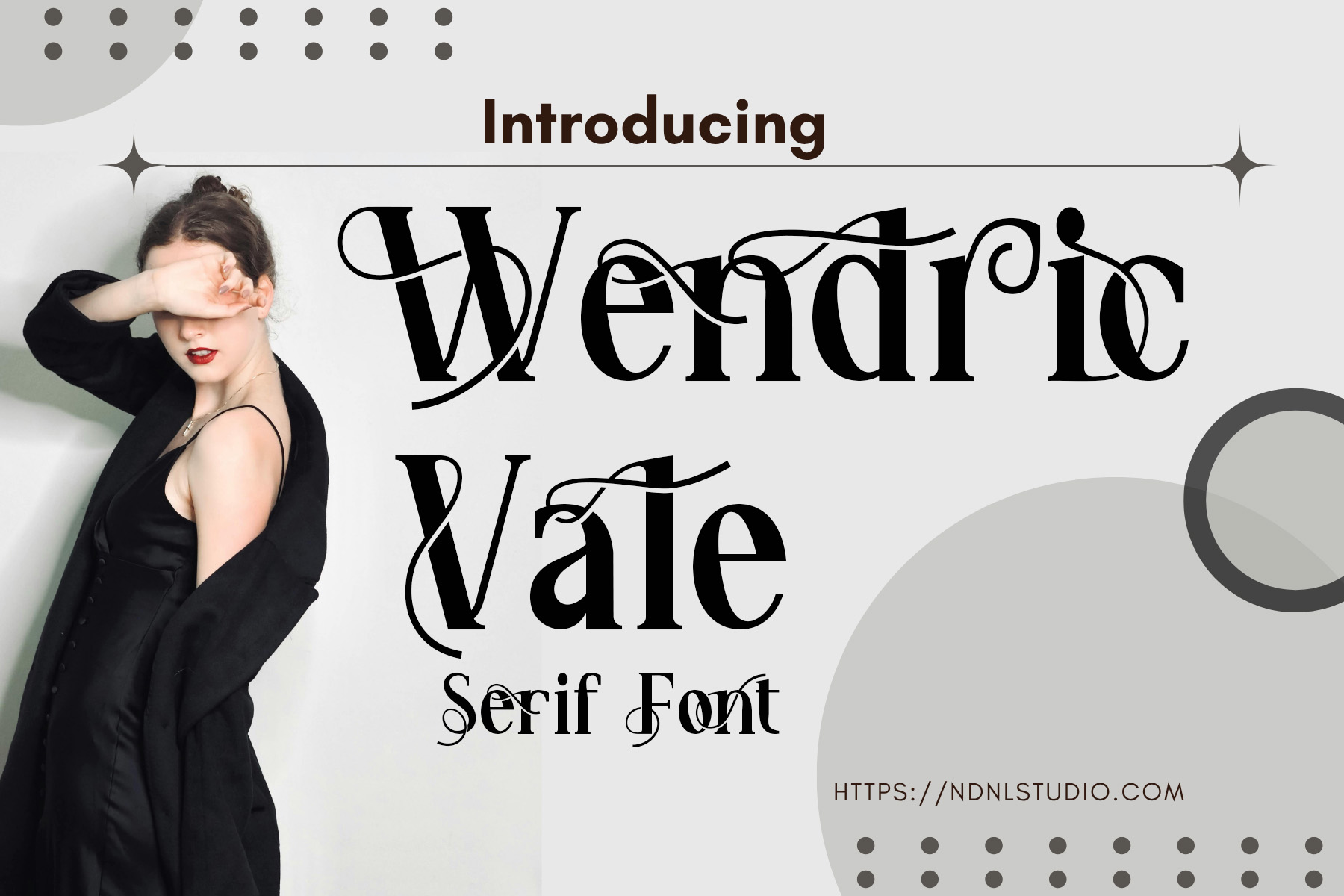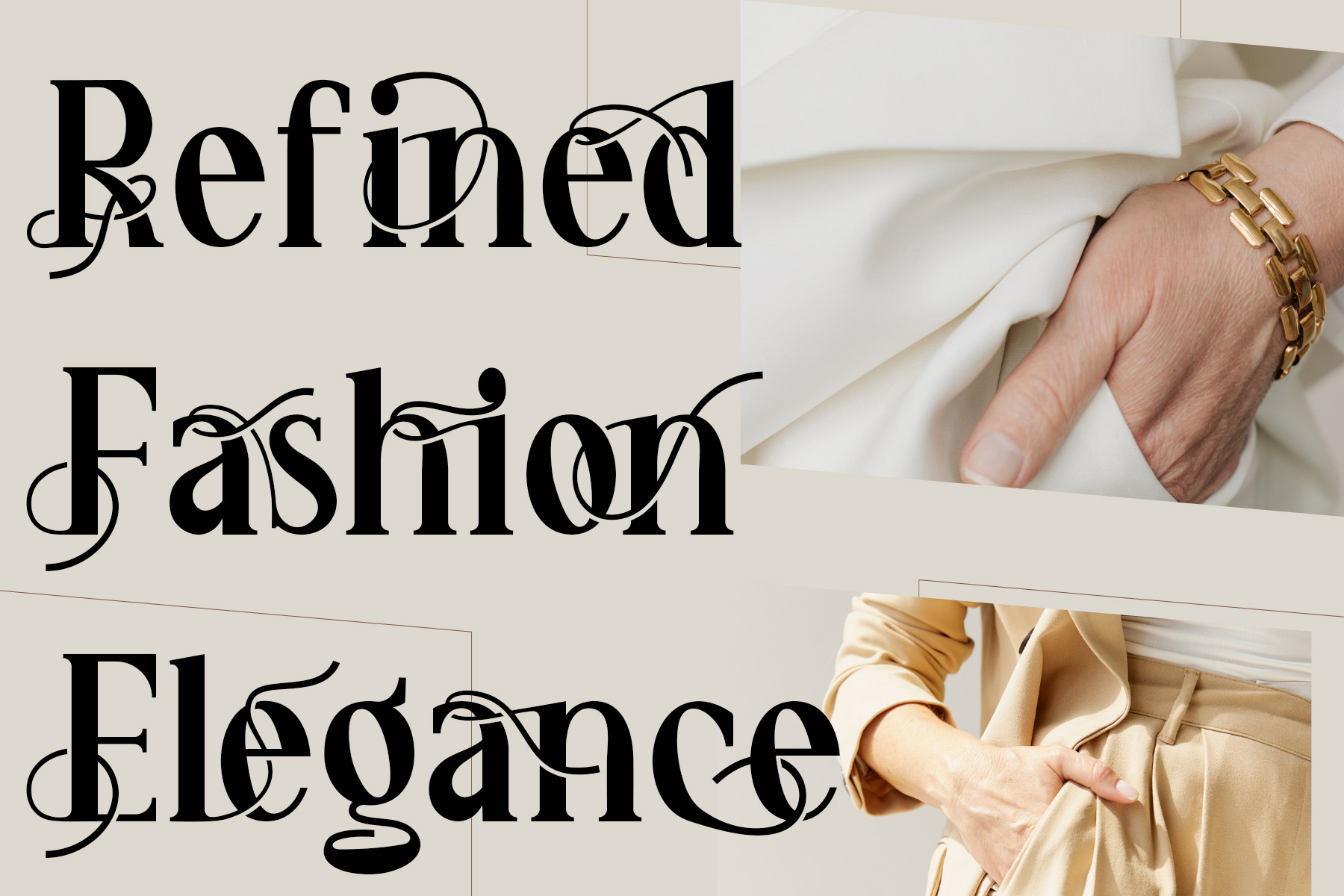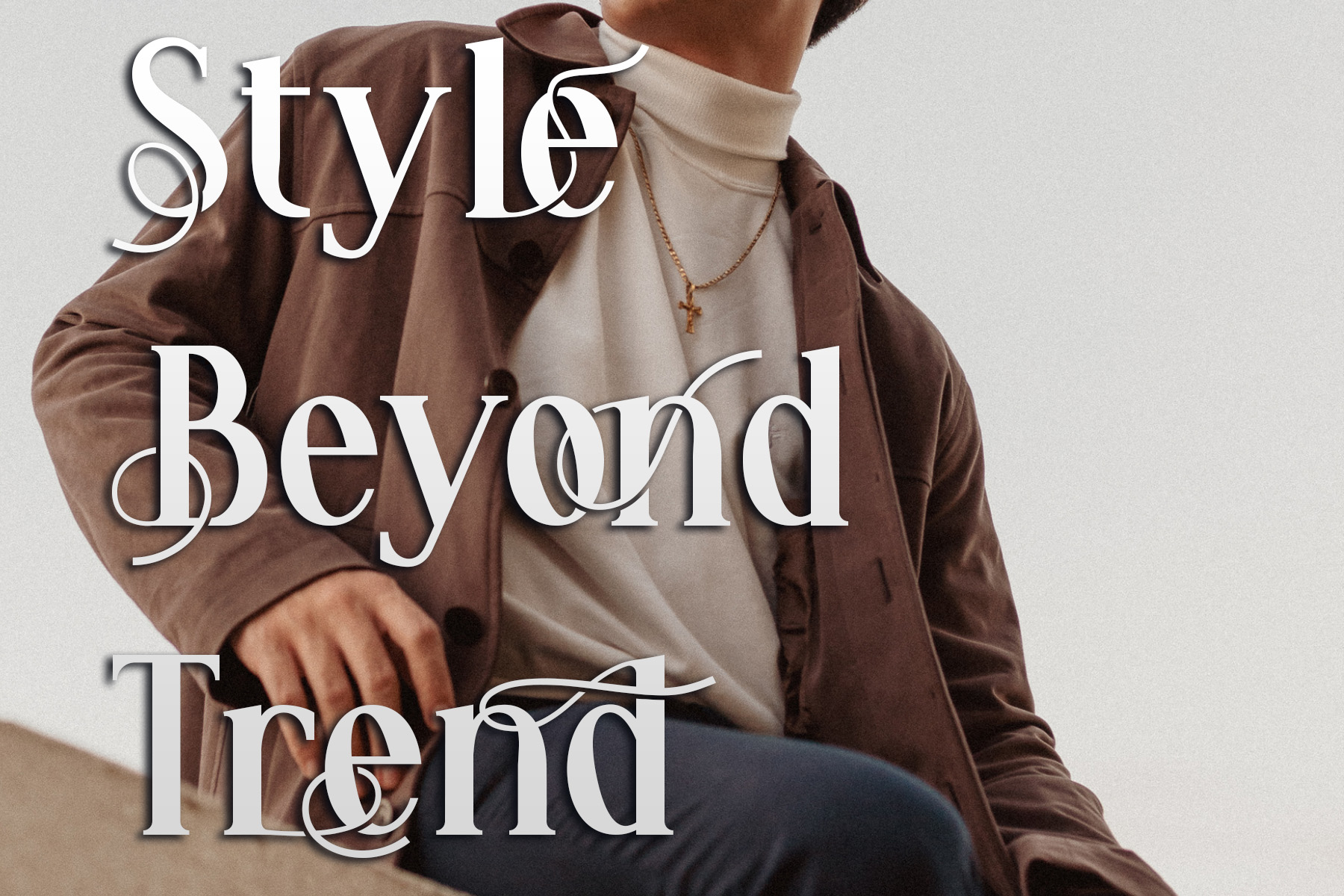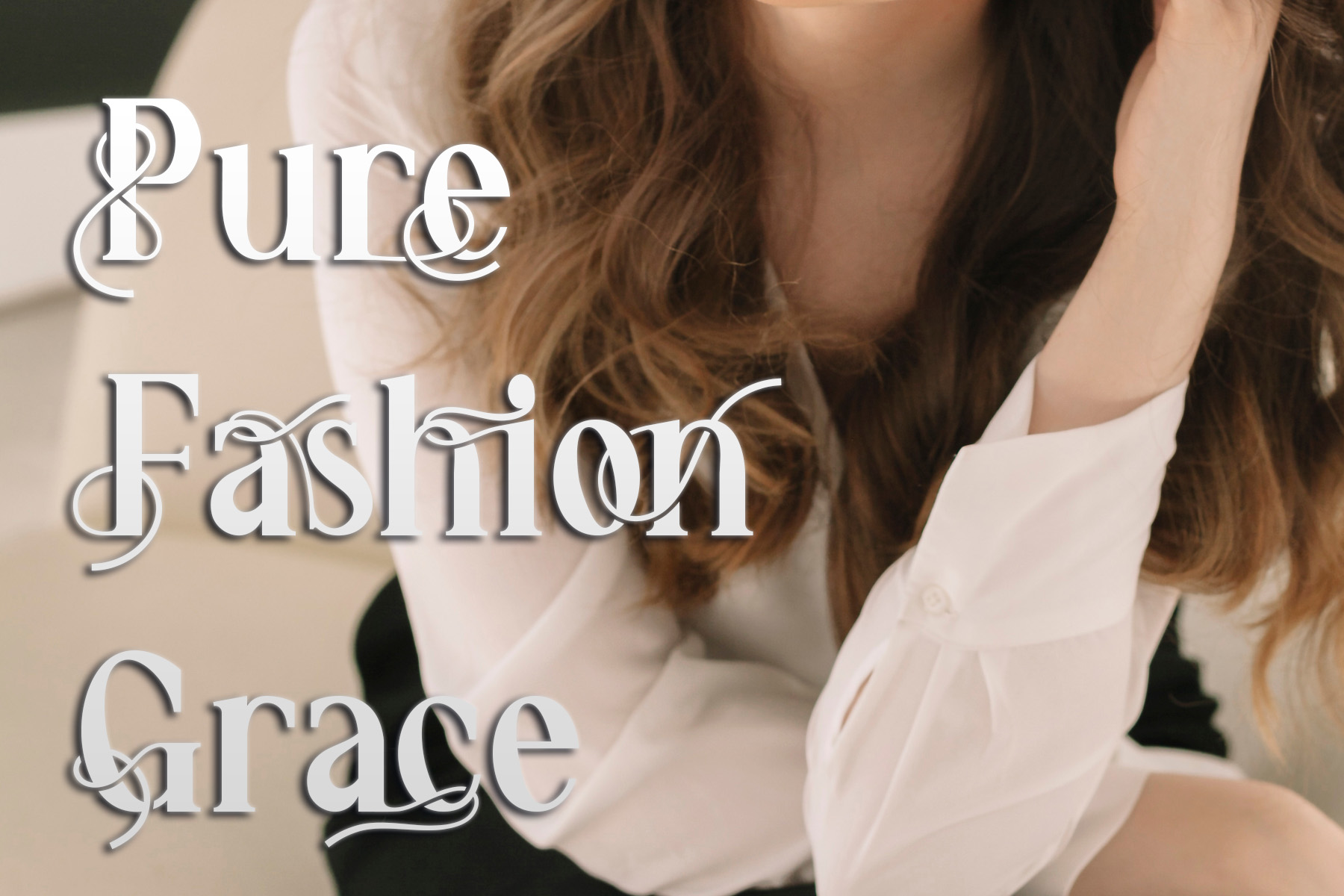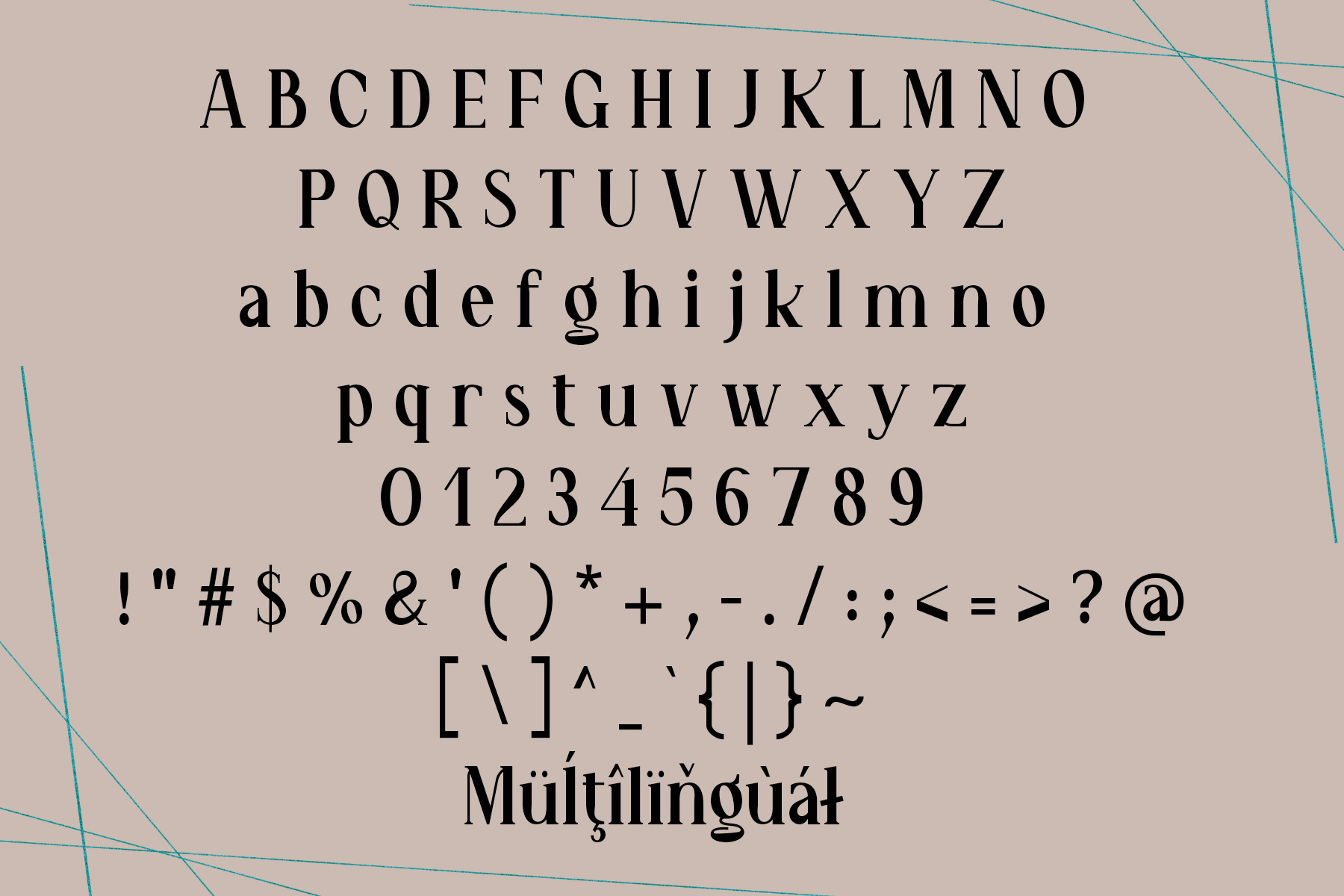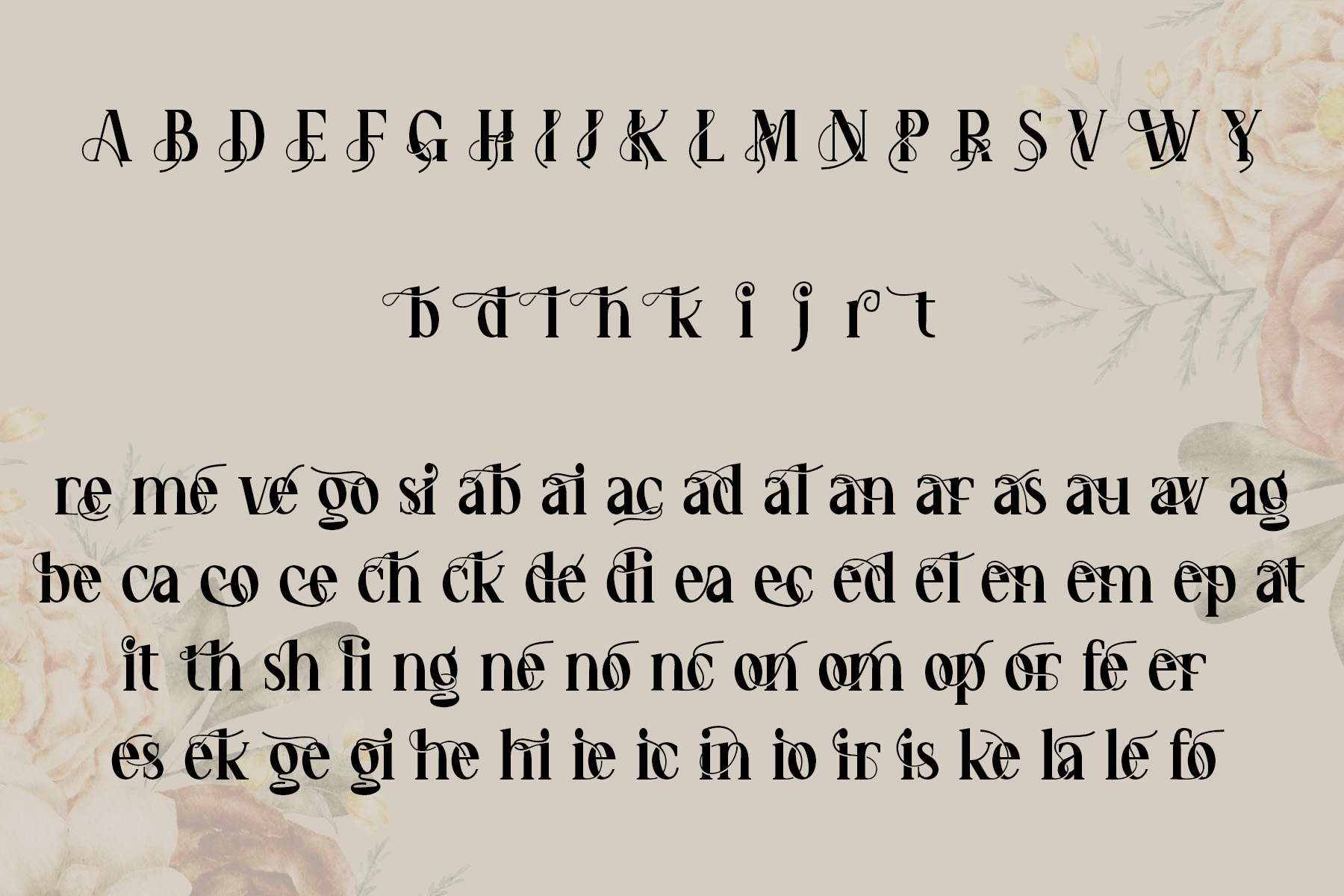
Wendric Vale – Serif Font
Introducing Wendric Vale!
Wendric Vale is more than just a serif font — it’s a statement of grace and individuality. Crafted with a perfect balance between bold structure and flowing elegance, every letter carries a sense of movement and sophistication. Its ornamental details and sharp contrasts evoke both vintage allure and modern refinement, making it an exceptional choice for creative projects that aim to captivate and inspire.
From editorial headlines and fashion branding to luxurious invitations, Wendric Vale adds a poetic touch to every composition. It transforms ordinary words into elegant expressions, bringing character and charm to any visual story you tell.